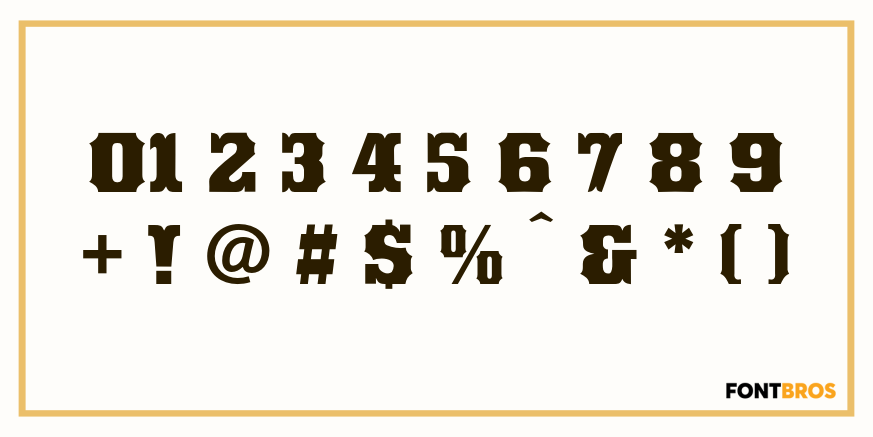
Opera House
This is a fake and a fraud and not a bad-looking type.
We did this to imitate the look of an old wood poster font, but it is completely new.
Please note: no lowercase.
Opera House includes 198 glyphs.
Opera House by Solotype